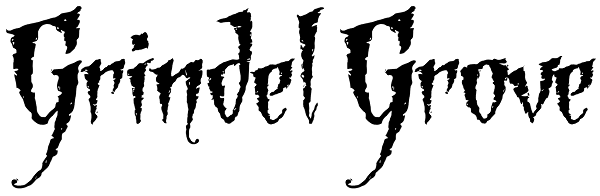
GrindelGrove
What mysteries lurk in the Grindel Grove? The bark-like texture and v-shaped letterforms of this spooky display face suggest deep dark woods, long-lost treasure maps, and cautionary fables.
Grindel Grove Font